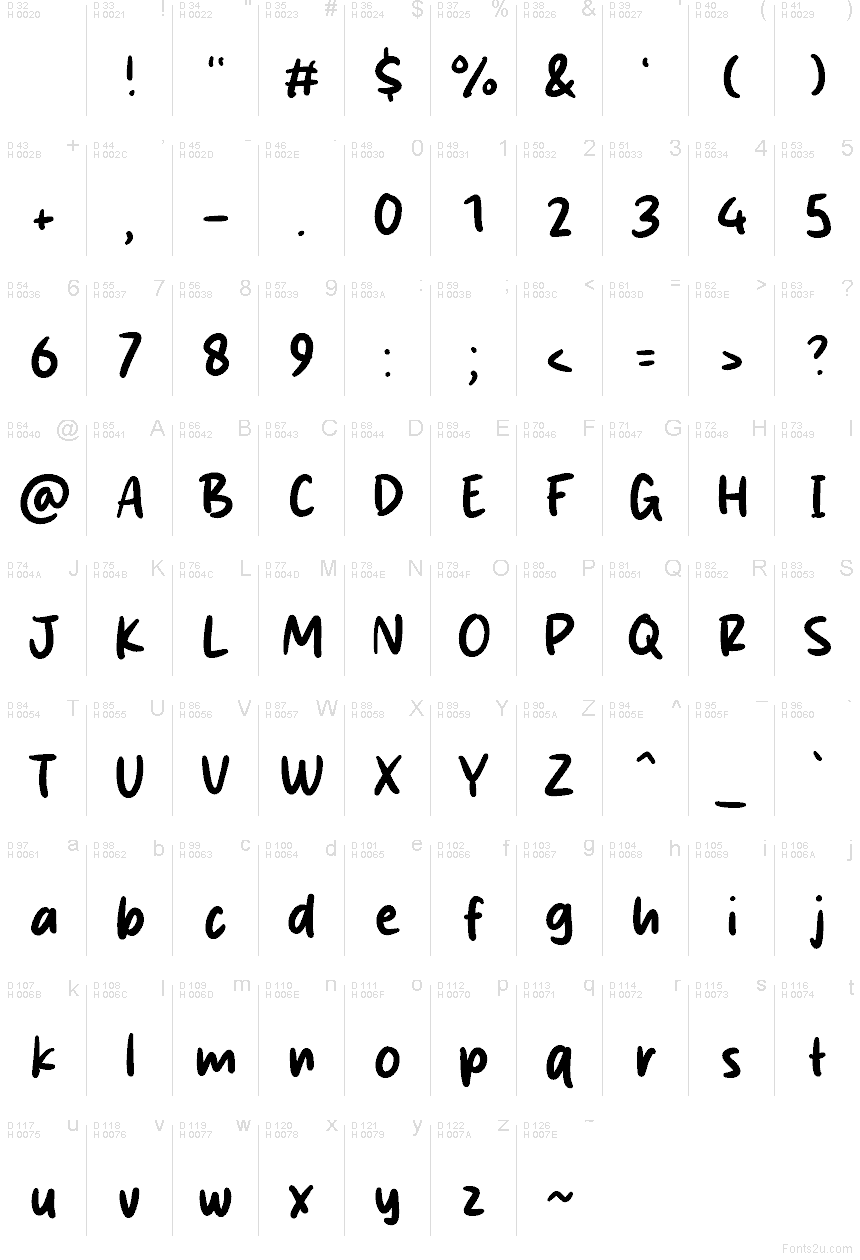
Smash Brush
Smash Brush font by MJType is a free handwritten typeface that captures the feel of bold marker strokes on smooth paper. Its rounded forms, inky curves, and slightly irregular rhythm give it a friendly, human touch while still reading clearly at a glance, like a confident note scrawled in thick black pen. The letters feel full and slightly bouncy, adding energy without getting messy.
Using Smash Brush, headlines and short phrases jump off the page, making this free font a natural fit for social media graphics, YouTube thumbnails, posters, stickers, packaging, and playful branding. It holds its character even at larger sizes, so don’t be afraid to scale it up for loud titles and pair it with a clean sans serif for supporting text.